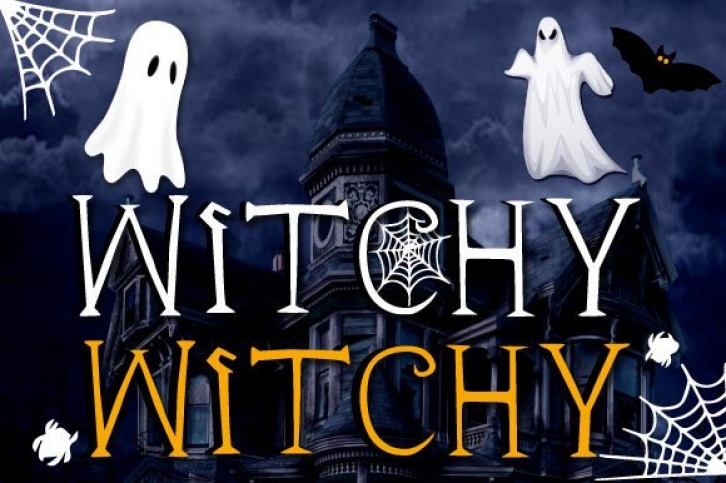
Witchy Witchy is a fun and playful serif font with a scary horror and witch theme. Masterfully designed to become a true favorite, a font that will make your designs look classic, mysterious, horror, and spooky. It is an excellent font for events, Halloween, fashion, apparel projects, signature, album covers, logos, branding, magazines, social media posts, and advertisements, but it also works great for other projects. Add it to your Halloween crafts, horror movie posters, t-shirts, and anything that requires a spectacular look.
This font has the potential to bring each of your creative ideas to the highest level!